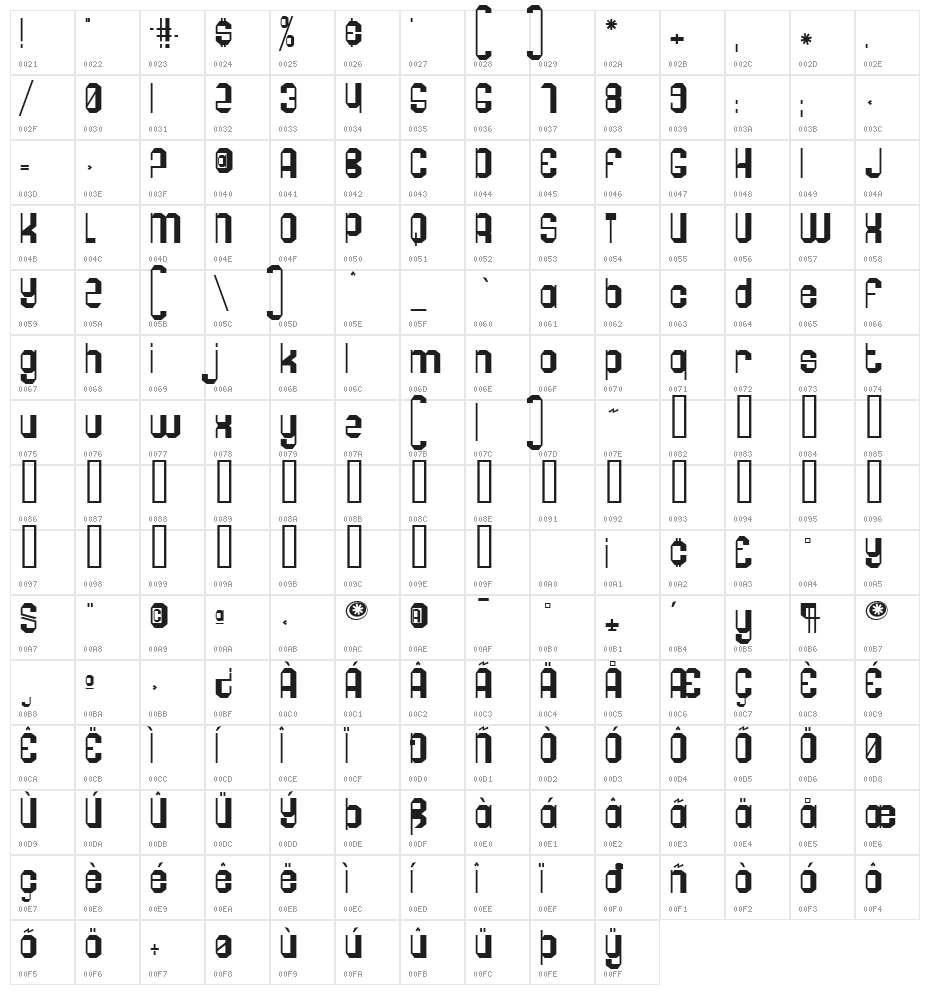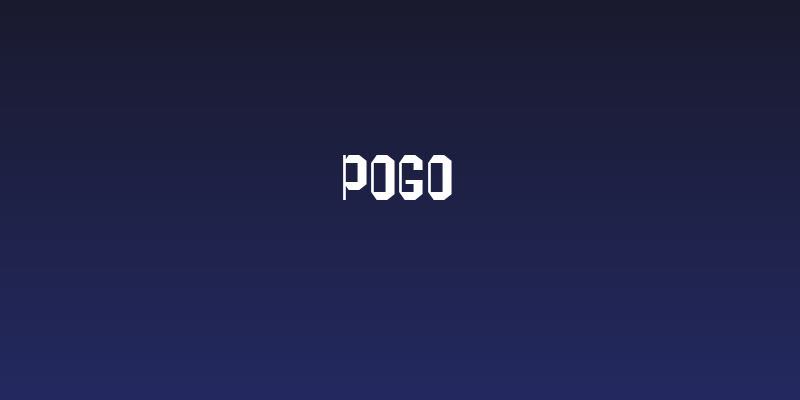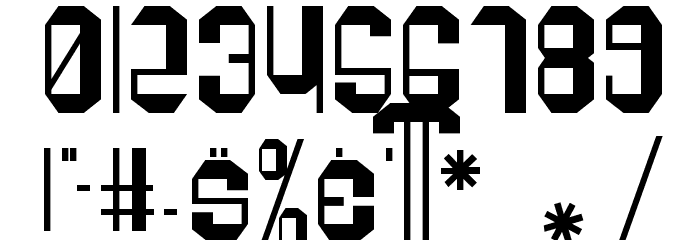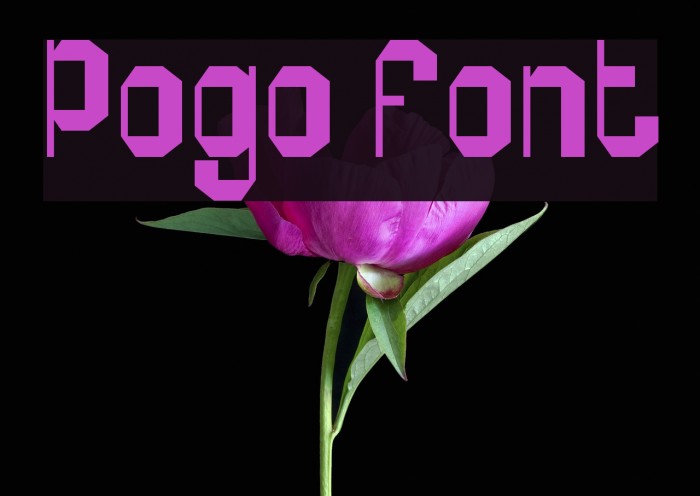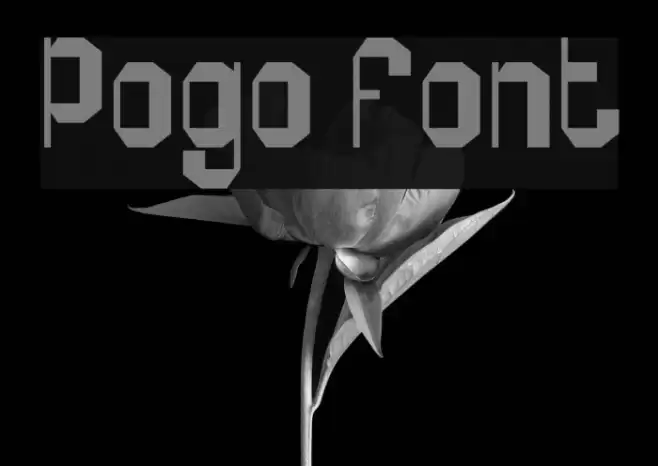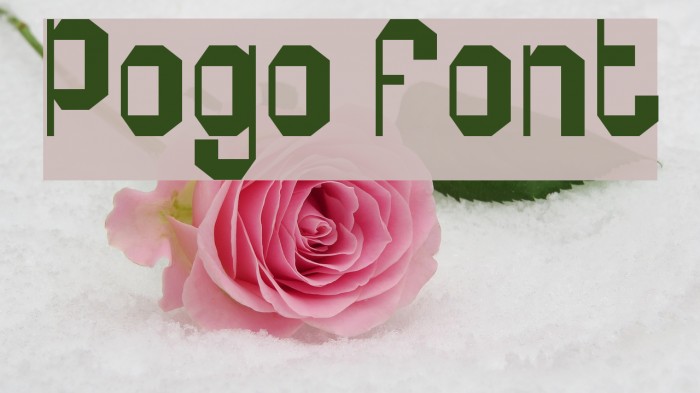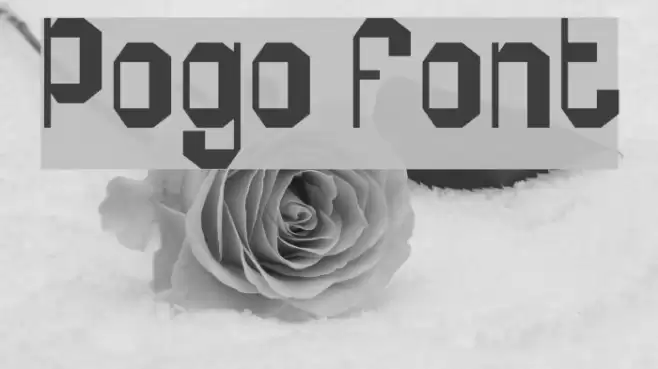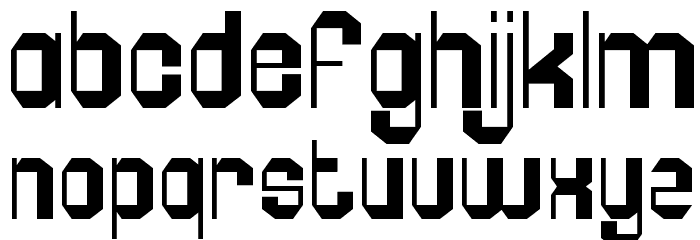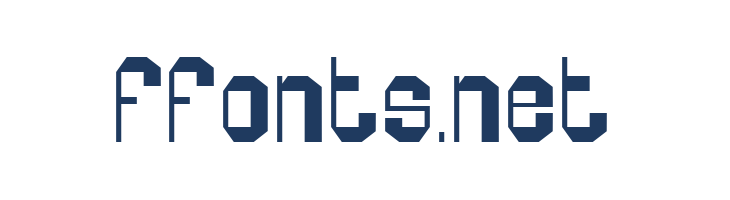
Pogo Font
Pogo Description
This font features a bold, geometric design with a strong emphasis on angular shapes and sharp edges. The uppercase and lowercase letters maintain a consistent height, creating a uniform appearance. The characters are constructed with thick, block-like strokes, giving them a robust and impactful presence. The numerals and special characters follow the same design principles, ensuring cohesion across all elements. The font's unique style is reminiscent of digital or futuristic aesthetics, making it stand out in modern design contexts.